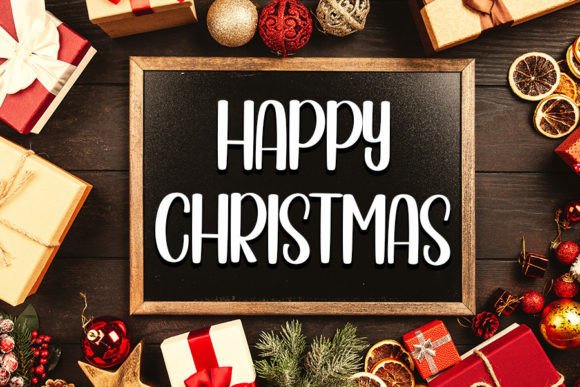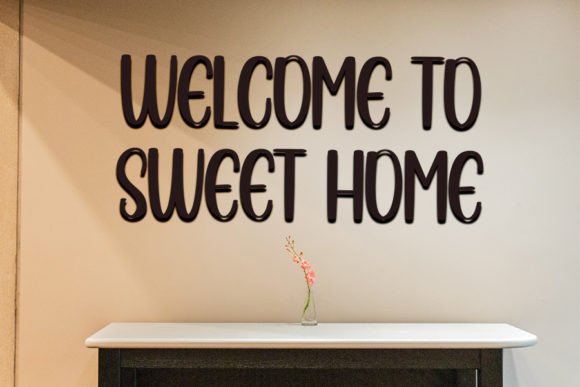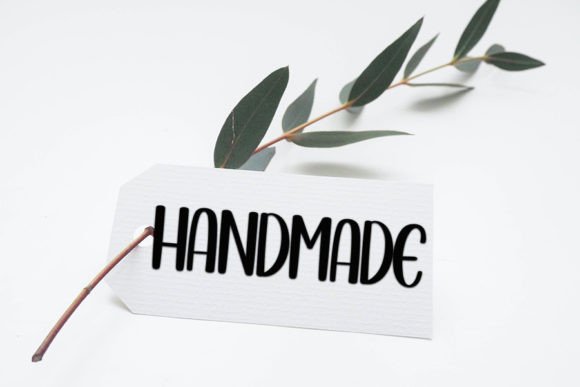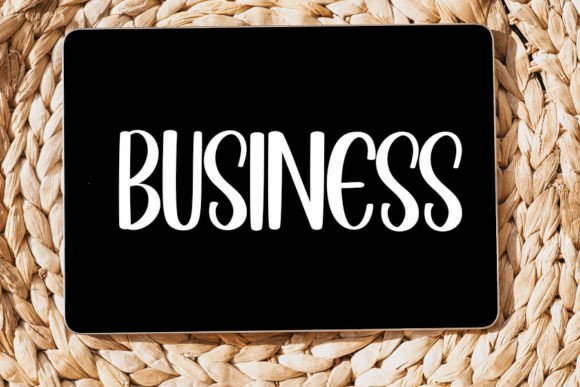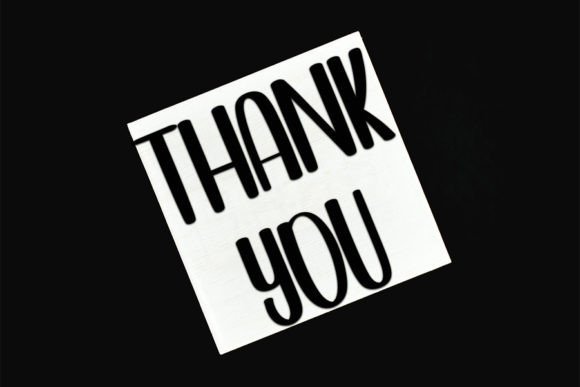
Christmas Market Font: The Perfect Addition to Your Holiday Designs
As the holiday season approaches, designers and crafters are on the lookout for the perfect fonts to add a touch of magic to their projects. If you’re searching for a font that exudes elegance and sophistication, look no further than the Christmas Market Font. This beautiful handwritten font is sure to become your new favorite, and for good reason. With its incredibly distinct and timeless style, Christmas Market Font is perfect for creating spectacular designs that will leave a lasting impression.
What is Christmas Market Font?
Christmas Market Font is a neat and beautiful handwritten font that is described by an elegant touch. It’s a font that is sure to fall in love with, thanks to its unique and refined style. The font is perfect for a wide range of projects, from holiday cards and invitations to branding and packaging. Whether you’re a designer, crafter, or DIY enthusiast, Christmas Market Font is a must-have addition to your font collection.
Key Features of Christmas Market Font
So, what makes Christmas Market Font so special? Here are just a few of its key features:
- Elegant and Refined Style: Christmas Market Font has an incredibly distinct and timeless style that is sure to add a touch of sophistication to any project.
- Handwritten with Love: This beautiful font is handwritten with love and care, giving it a personal and unique touch.
- Perfect for Holiday Projects: Christmas Market Font is specifically designed with the holiday season in mind, making it perfect for creating festive and fun designs.
- Versatile and Easy to Use: This font is easy to use and can be applied to a wide range of projects, from digital designs to print materials.
Why Choose Christmas Market Font?
With so many fonts to choose from, why should you choose Christmas Market Font? Here are just a few reasons why this font stands out from the rest:
- Unique and Original: Christmas Market Font is a unique and original font that is sure to make your designs stand out from the crowd.
- High-Quality Design: This font is designed to the highest standards, ensuring that it looks great in any size or format.
- Easy to Read: Despite its elegant and refined style, Christmas Market Font is easy to read and understand, making it perfect for use in a wide range of projects.
How to Use Christmas Market Font
So, how can you use Christmas Market Font in your designs? Here are just a few ideas to get you started:
- Holiday Cards and Invitations: Use Christmas Market Font to create beautiful and festive holiday cards and invitations.
- Branding and Packaging: Add a touch of elegance and sophistication to your branding and packaging with this beautiful font.
- Digital Designs: Use Christmas Market Font in your digital designs, such as social media graphics, blog posts, and email newsletters.
- Print Materials: This font is perfect for use in print materials, such as flyers, brochures, and posters.
If you’re looking for a font that will add a touch of magic to your holiday designs, look no further than Christmas Market Font. With its elegant and refined style, this beautiful handwritten font is perfect for creating spectacular designs that will leave a lasting impression. Whether you’re a designer, crafter, or DIY enthusiast, Christmas Market Font is a must-have addition to your font collection.